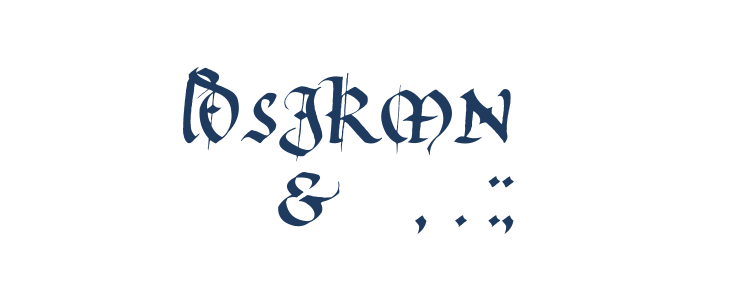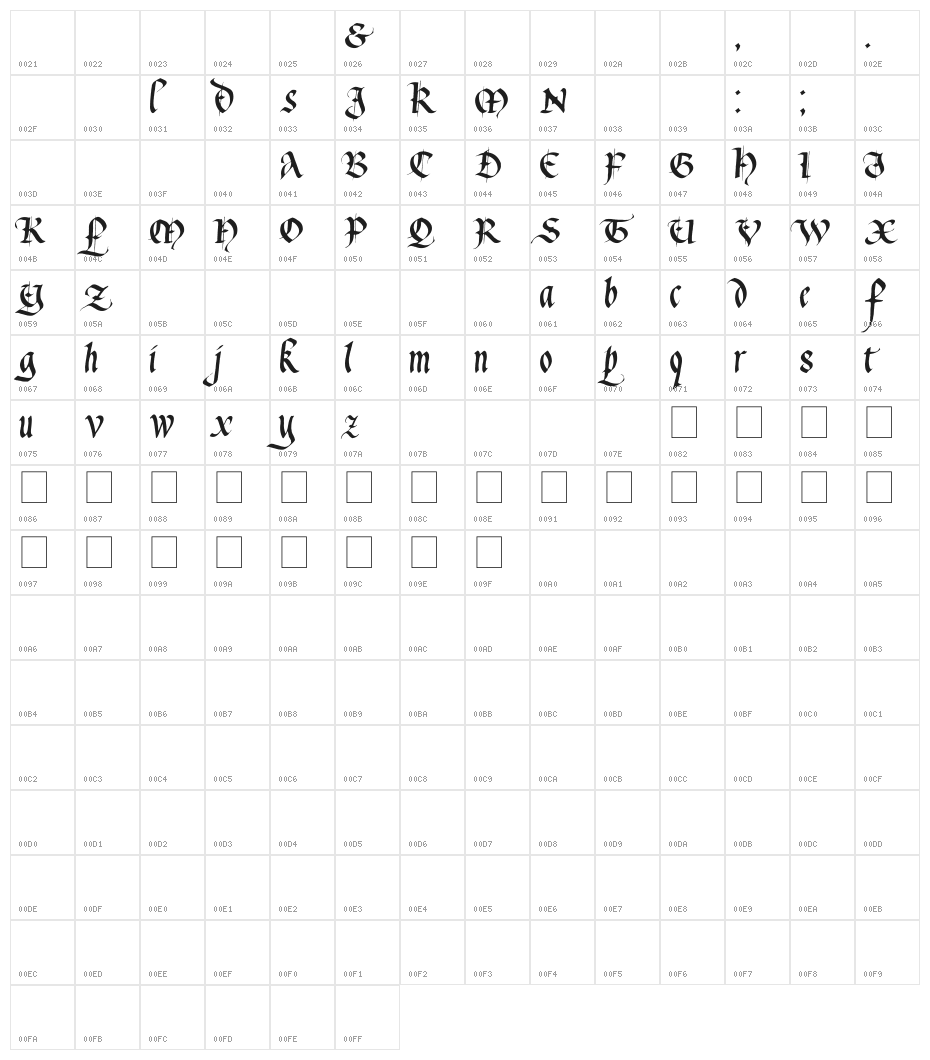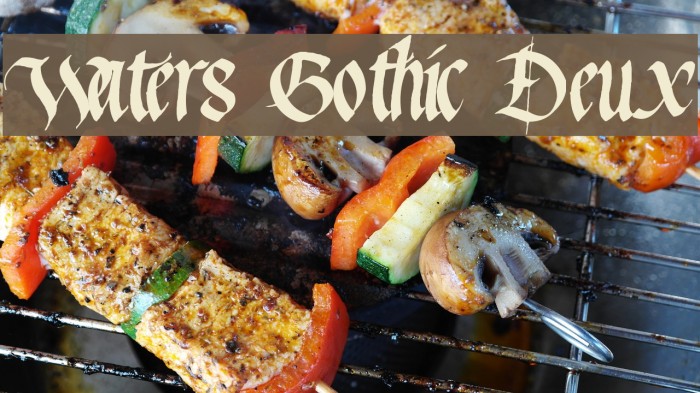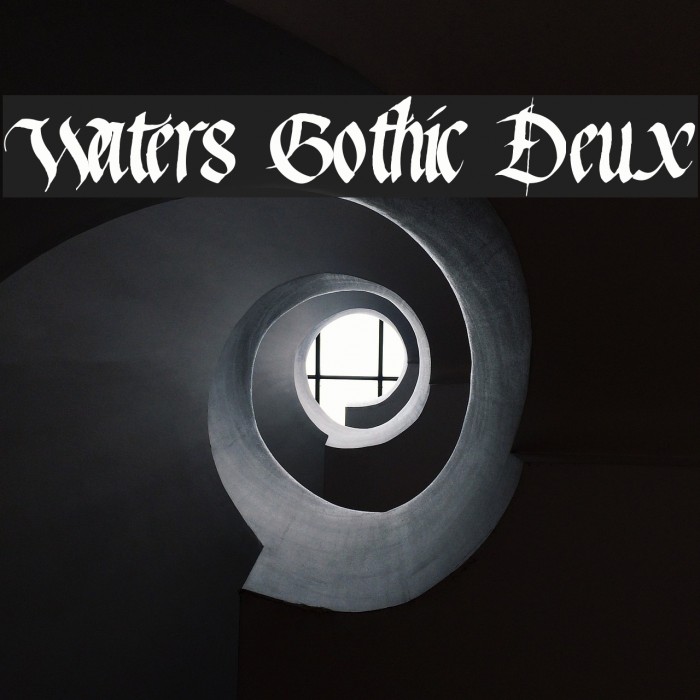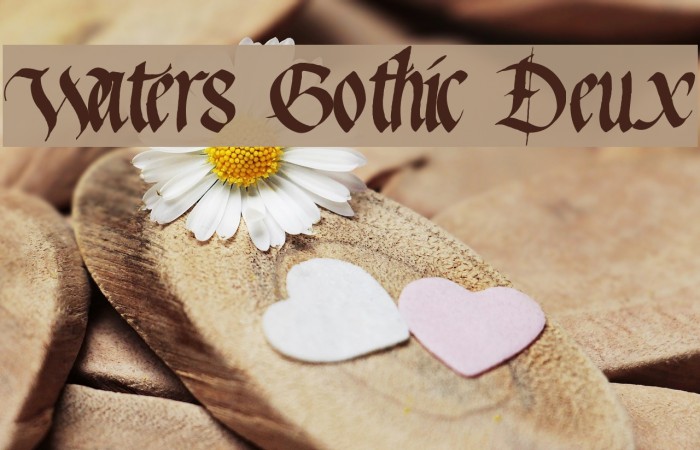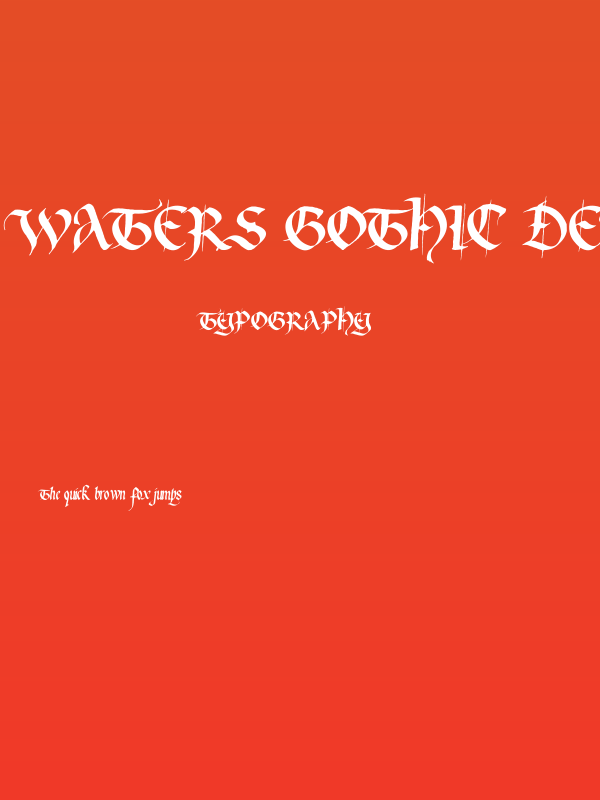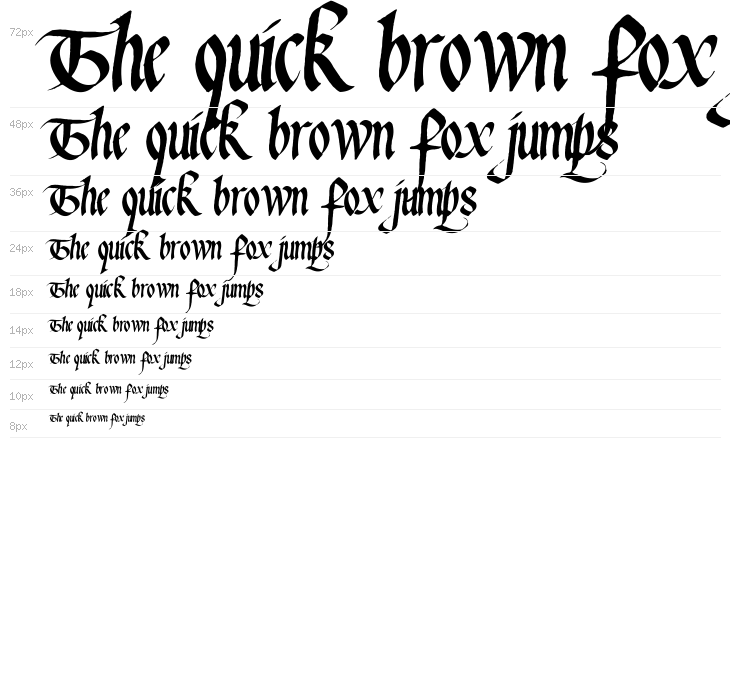
Waters Gothic Deux Font
Waters Gothic Deux Description
This font exhibits a classic blackletter style, characterized by its intricate and ornate design. The letters are bold and dramatic, with sharp, angular strokes and elaborate flourishes that give it a medieval, gothic appearance. The uppercase letters are particularly elaborate, with extended serifs and decorative elements that enhance their visual impact. The lowercase letters maintain the same level of detail, ensuring consistency throughout the typeface. The numbers and special characters are designed to match the overall aesthetic, making this font suitable for projects that require a historical or traditional feel.